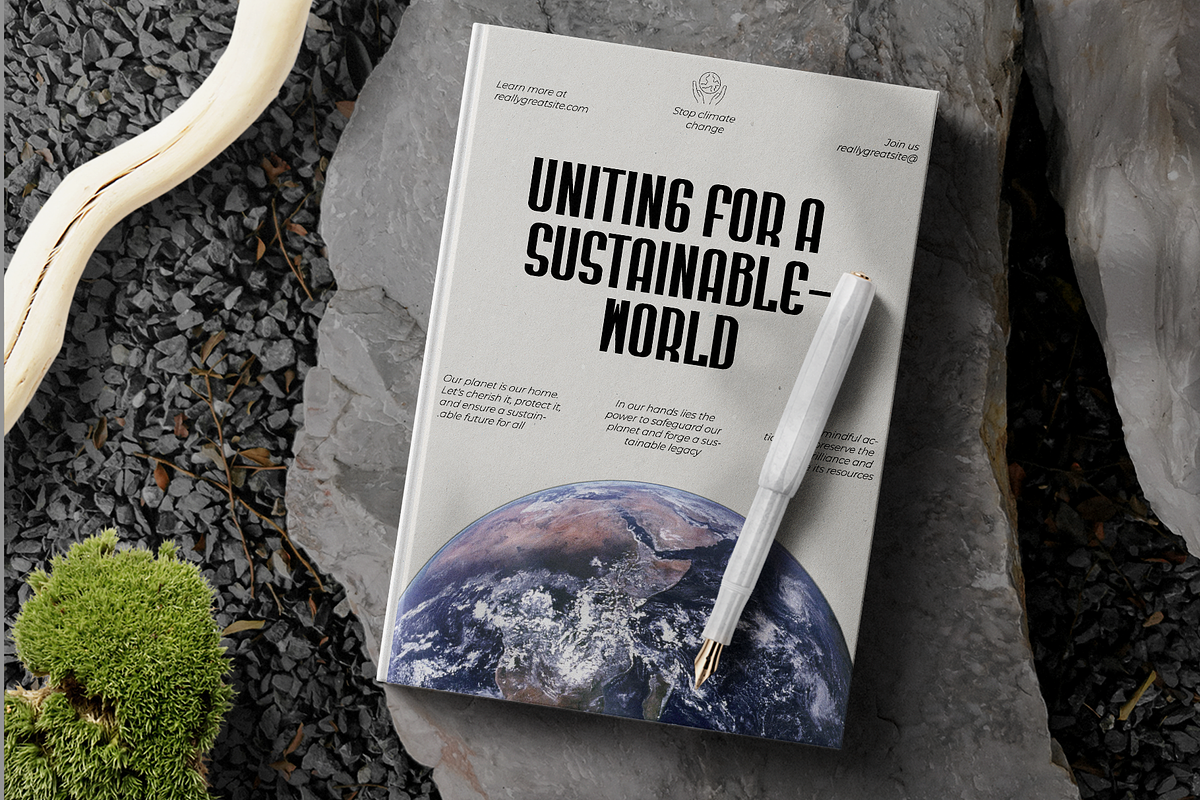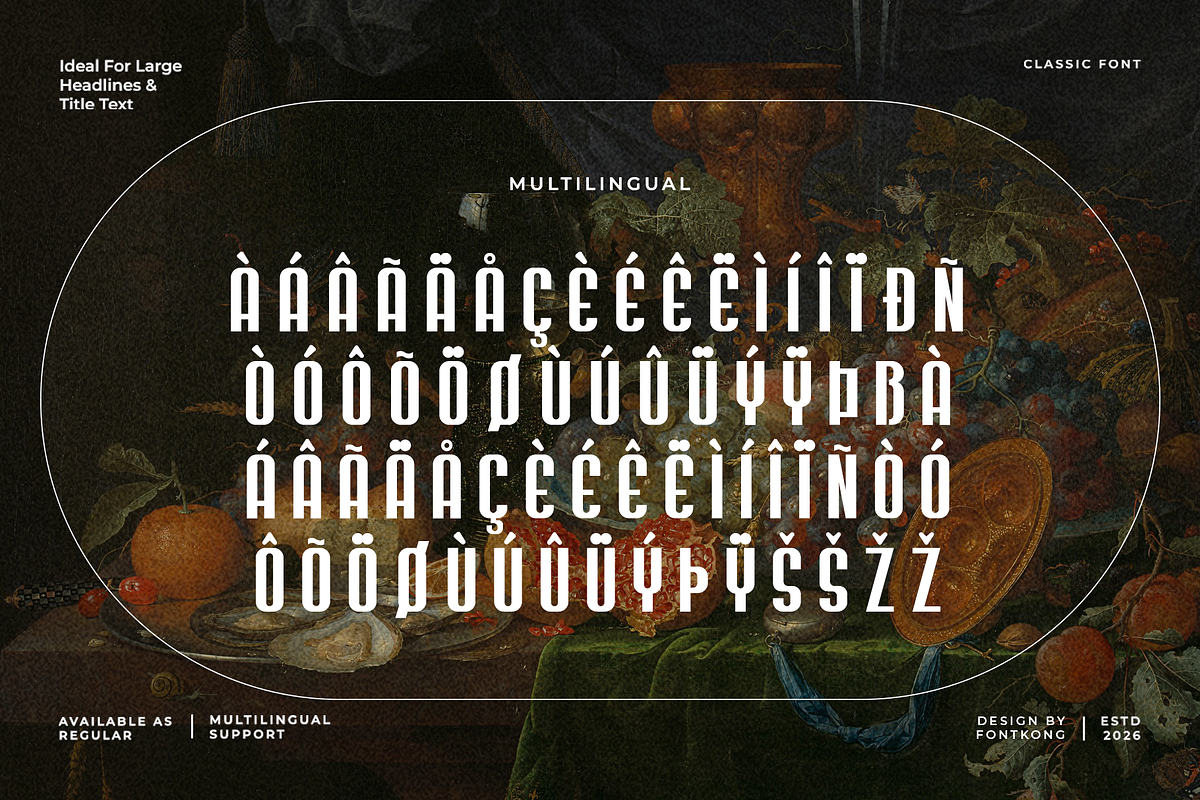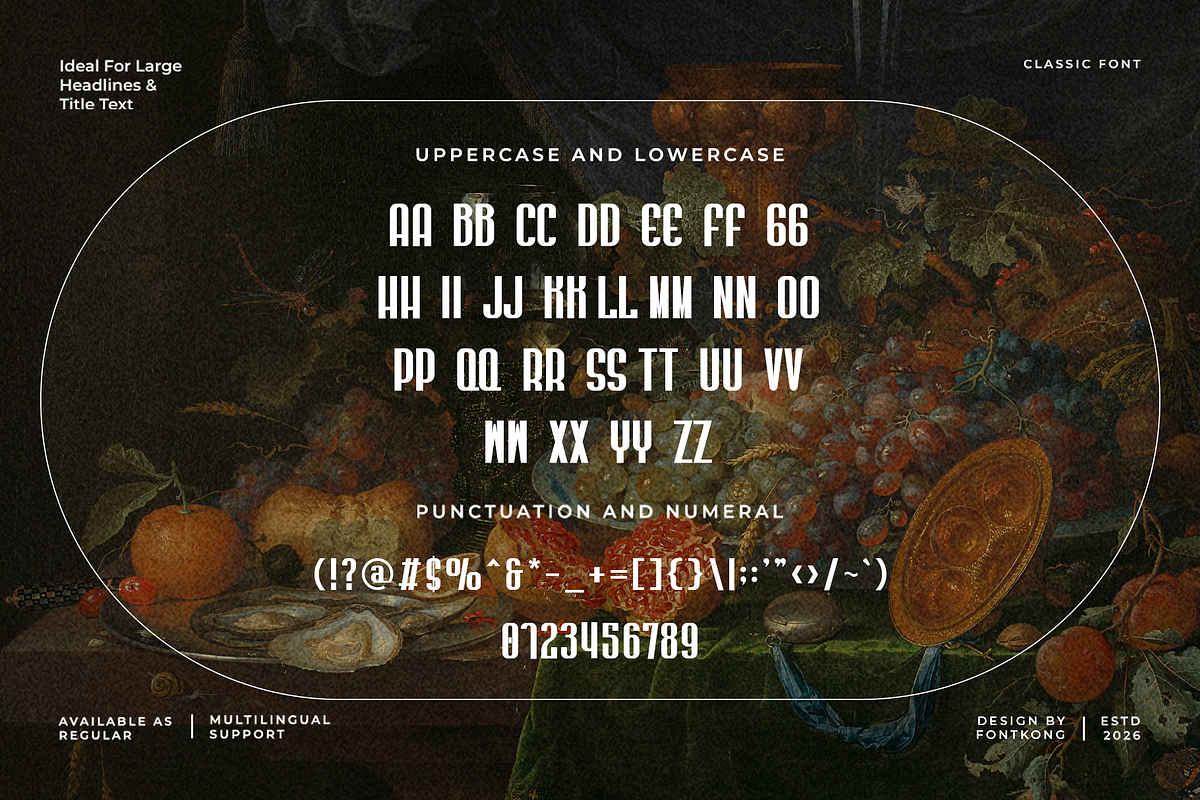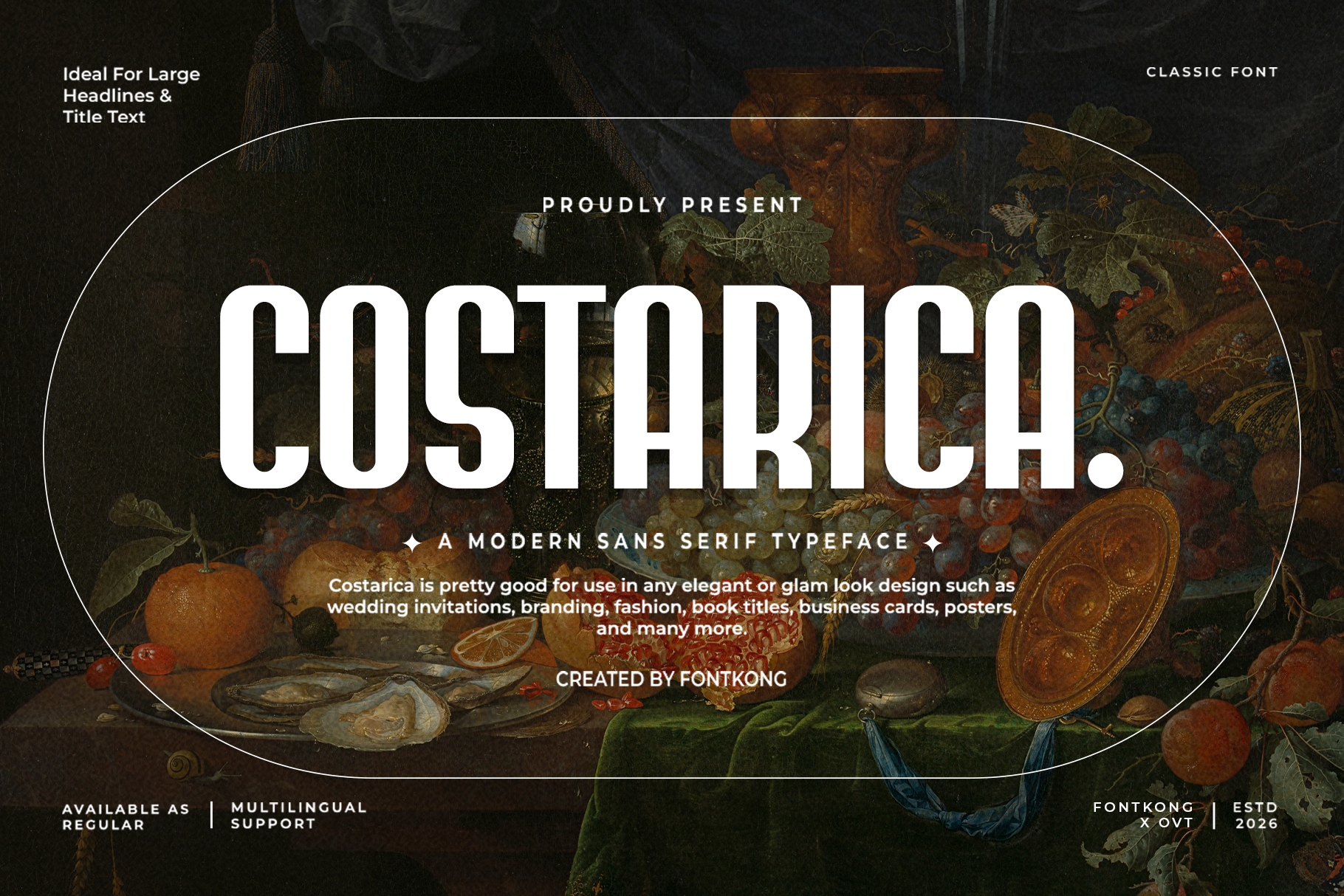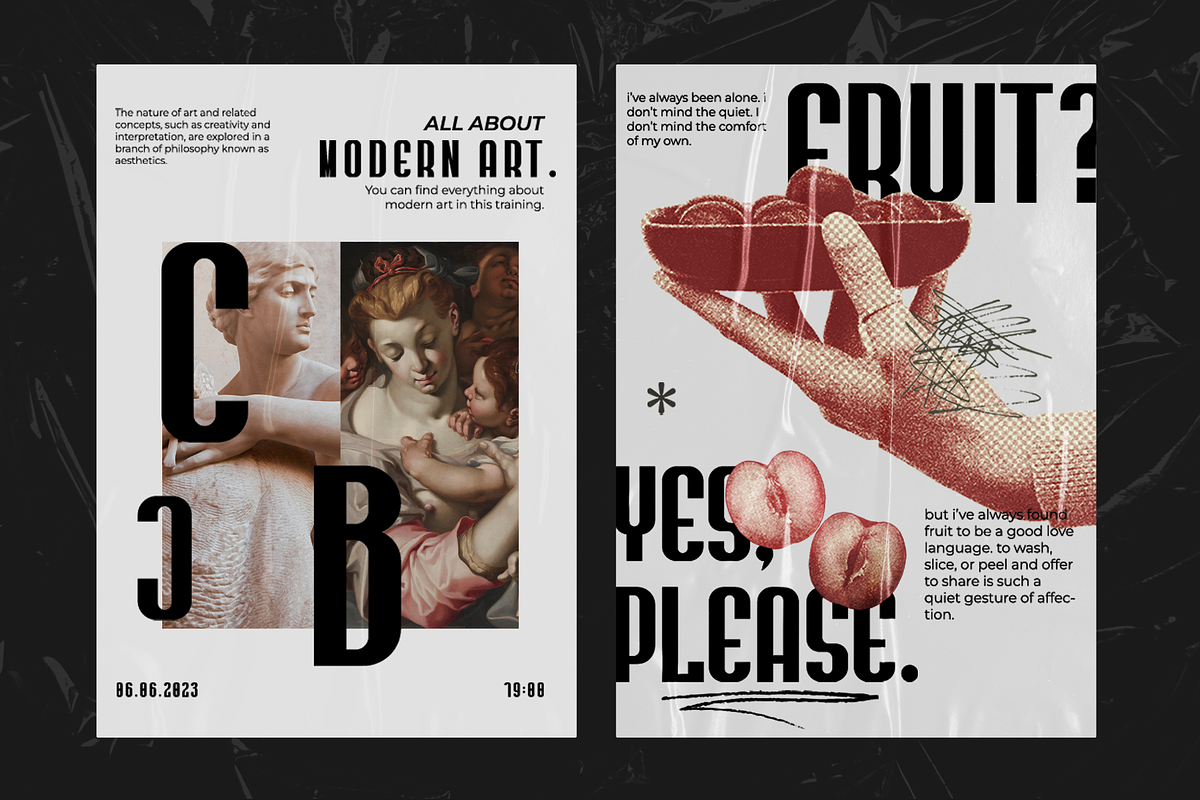
Costarica-Modern Sans Serif Typeface
Costarica - Modern Sans Serif Typeface
Introducing "Costarica," a modern sans serif typeface that embodies sleek simplicity and timeless modernity. Perfect for graphic designers, typographers, and creatives seeking a clean and versatile typeface, Costarica offers a refined and contemporary design that enhances any project with its minimalist charm.
Ideal for branding, editorial layouts, websites, logos, and packaging, Costarica’s streamlined characters provide a professional and sophisticated aesthetic. Each letter is meticulously crafted to ensure clarity and visual appeal, making your designs both elegant and impactful.
The "Costarica" font includes a complete set of uppercase and lowercase letters, numbers, punctuation marks, and special characters. This comprehensive set ensures seamless integration into various design projects, from polished branding to sleek editorial content.
Elevate your designs with Costarica, the modern sans serif typeface that combines sleek simplicity with timeless modernity.